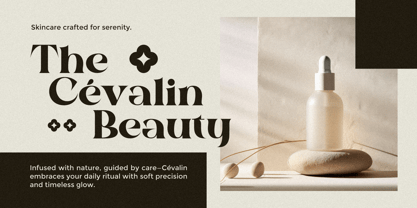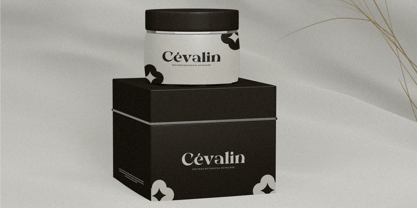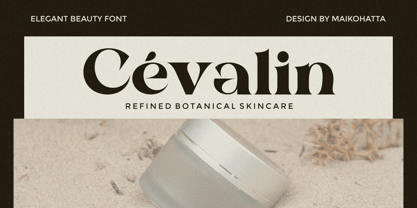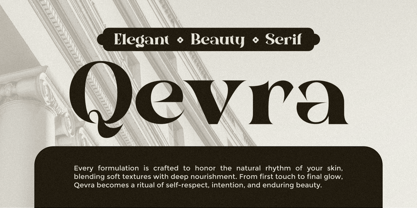
Negto
The Negto Font Family was designed by Gilang Ternadho and published by Maikohatta. Negto contains 1 styles.
Introducing Negto Elegant Serif Typeface adds a touch of sophistication and timeless style to your projects. It features clean lines and balanced shapes that make text easy to read while keeping it elegant. This font suits branding, editorial work, packaging, and any design needing a classic but fresh look.
Negto stands out with its carefully shaped letters that mix classic serif style with modern design. Also, this font works well in digital and print projects, giving a consistent look everywhere. It pairs nicely with simple sans-serif fonts to create a clear visual flow.
This serif font shows professionalism and style. Plus, its clear letters help your message reach readers easily. Whether you design business cards, posters, or website headings, Jaguar gives a polished look that draws attention.